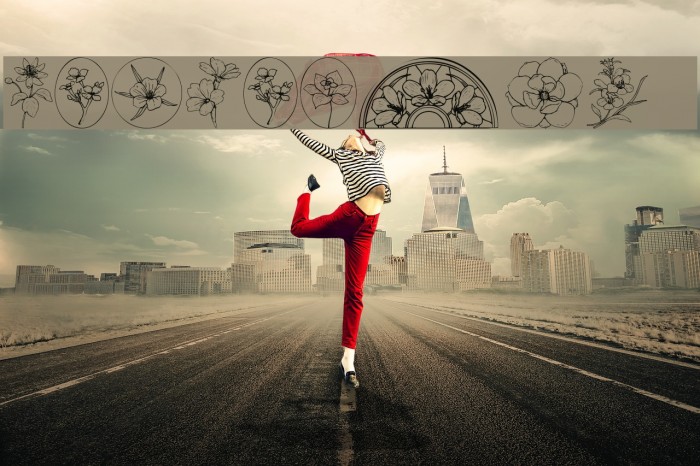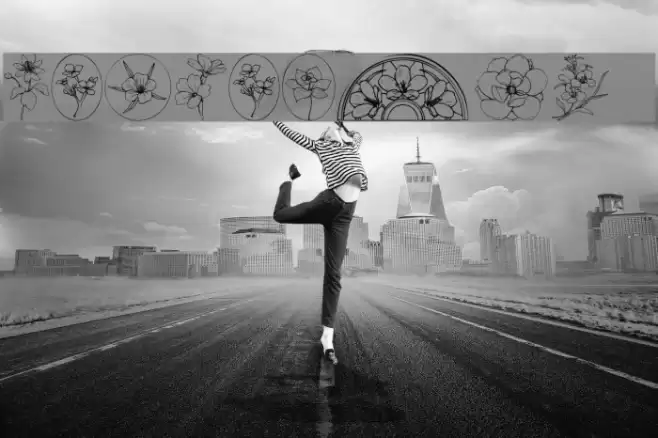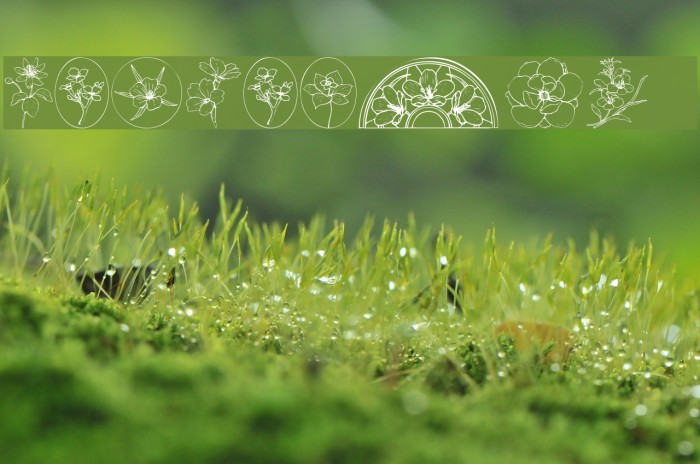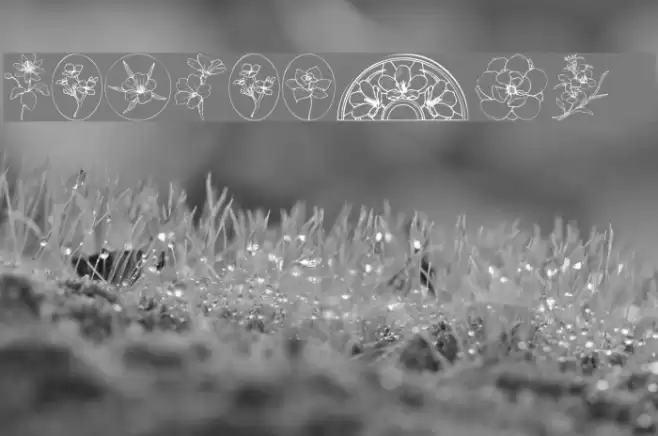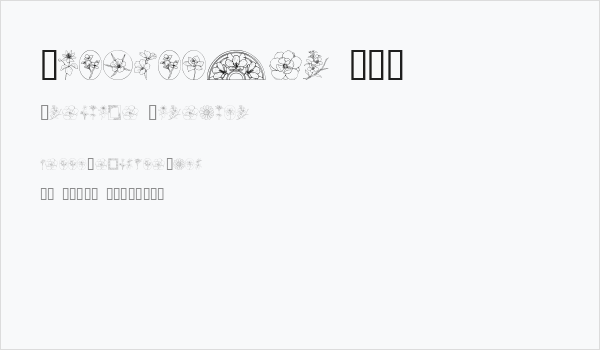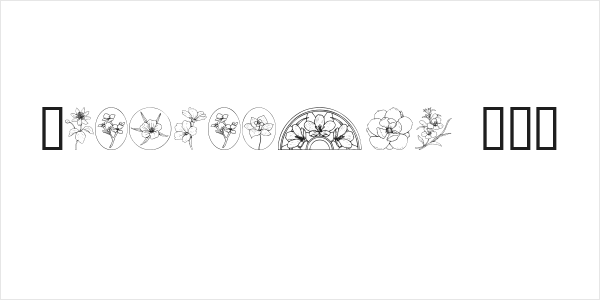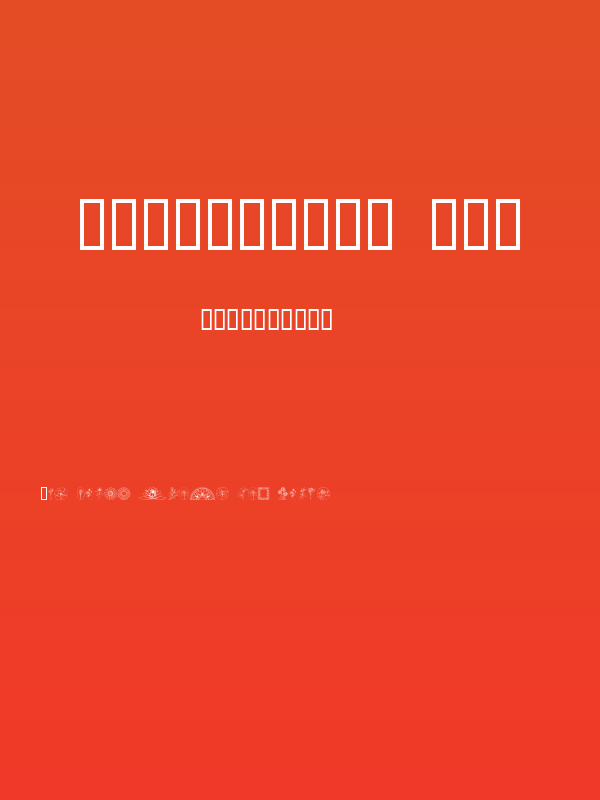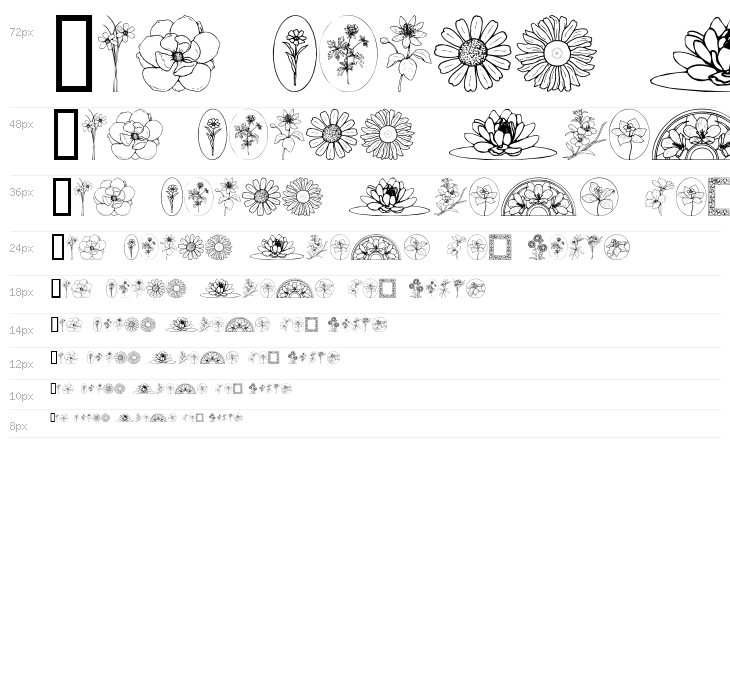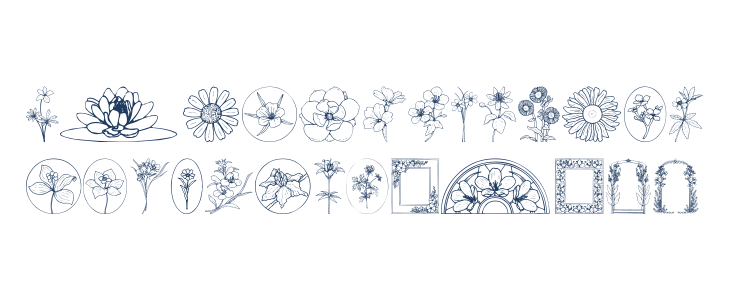
Wildflower III Font
Wildflower III Description
A decorative collection of hand-drawn wildflower illustrations and ornate floral frames, featuring a variety of botanical motifs in fine line art style. The set includes individual flowers, floral arrangements, and intricate borders, all rendered with delicate, detailed lines.
| Overall Style | Decorative, Botanical, Hand-drawn |
| Use Case | Logos, Decorative elements, Invitations, Stationery |
| Proposed Projects | Wedding invitations, greeting cards, botanical prints, branding, packaging, scrapbooking, decorative borders. |